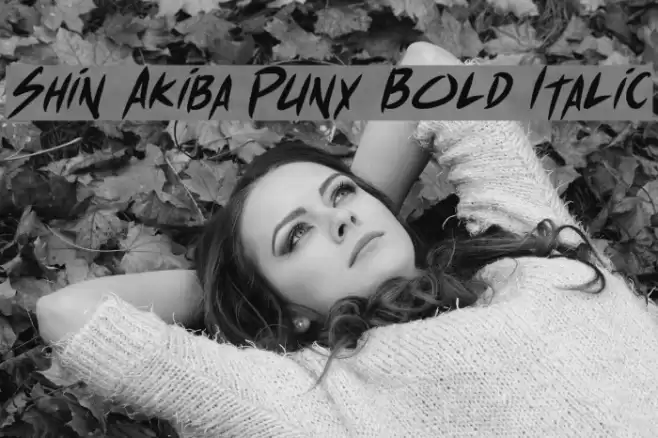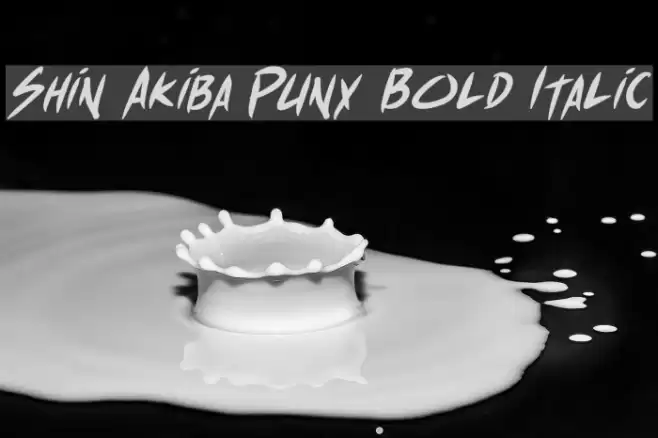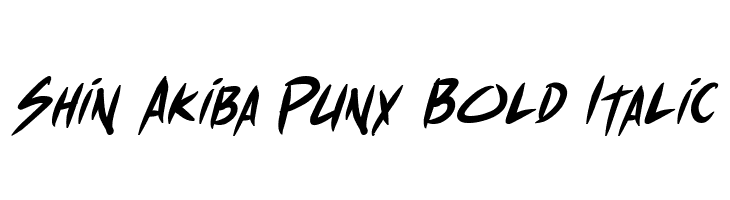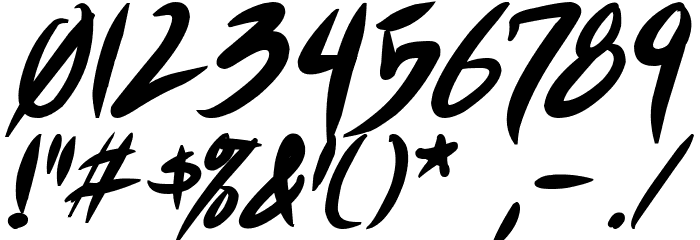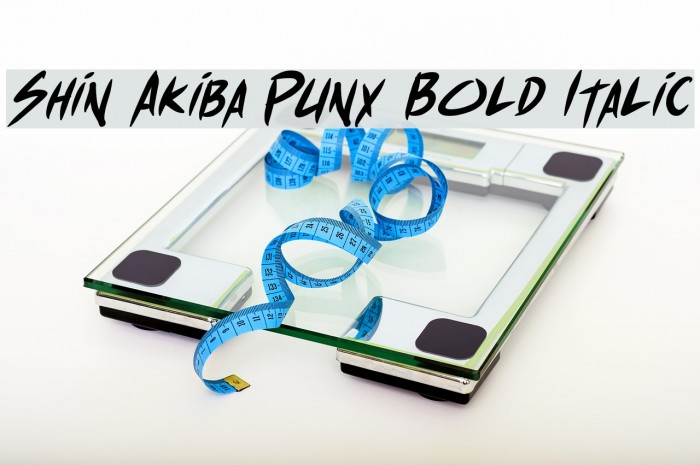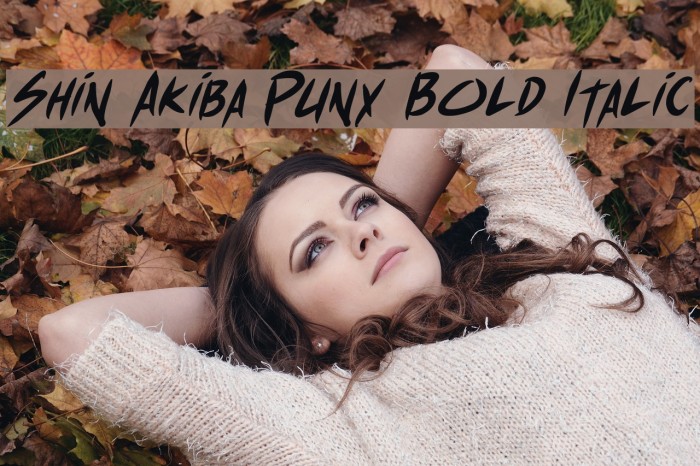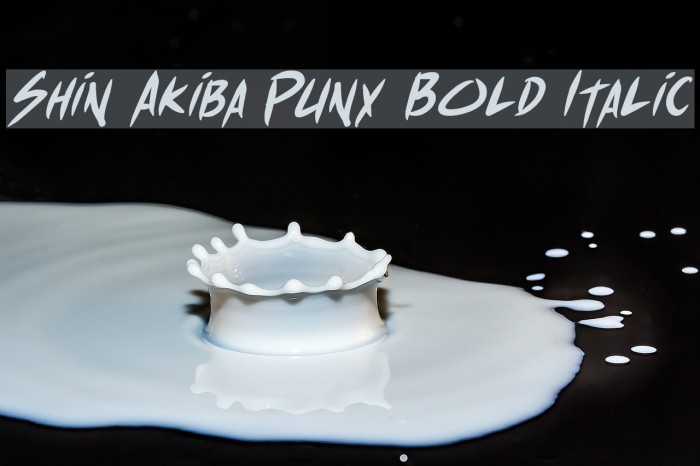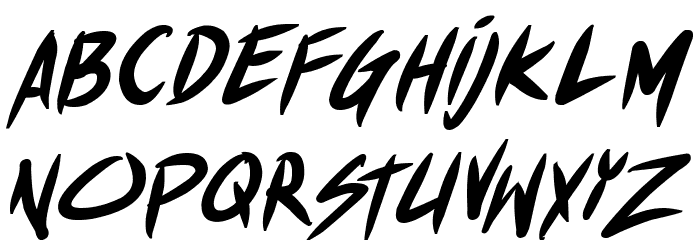
Shin Akiba Punx Bold Italic Font
Shin Akiba Punx Bold Italic Description
This font features a bold and dynamic style with a strong italic slant, giving it an energetic and expressive appearance. The strokes are thick and fluid, resembling a brush script with a modern twist. Each character is uniquely crafted, maintaining a consistent flow throughout the alphabet. The uppercase and lowercase letters share a cohesive design, while the numerals and special characters complement the overall aesthetic. The font's boldness and slanted form make it stand out, ideal for creating impactful visual statements.
A bold, italic, brush-style font with dynamic strokes from Comic fonts.
- Proposed Projects: Ideal for posters, branding, music album covers, and any project requiring a bold, artistic touch.